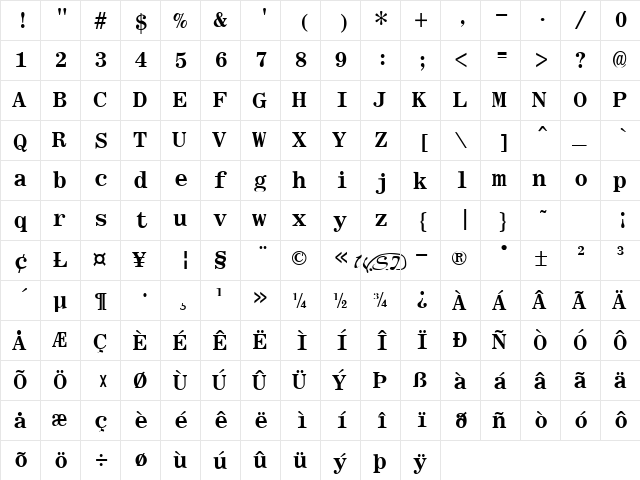
Roman Fixed-width Bold
Design Context for Roman Fixed-width Typeface
Roman Fixed-width is a composed and adaptable typeface that performs quietly and consistently across a wide range of design contexts. The heavy weight commands attention and anchors typographic hierarchies.